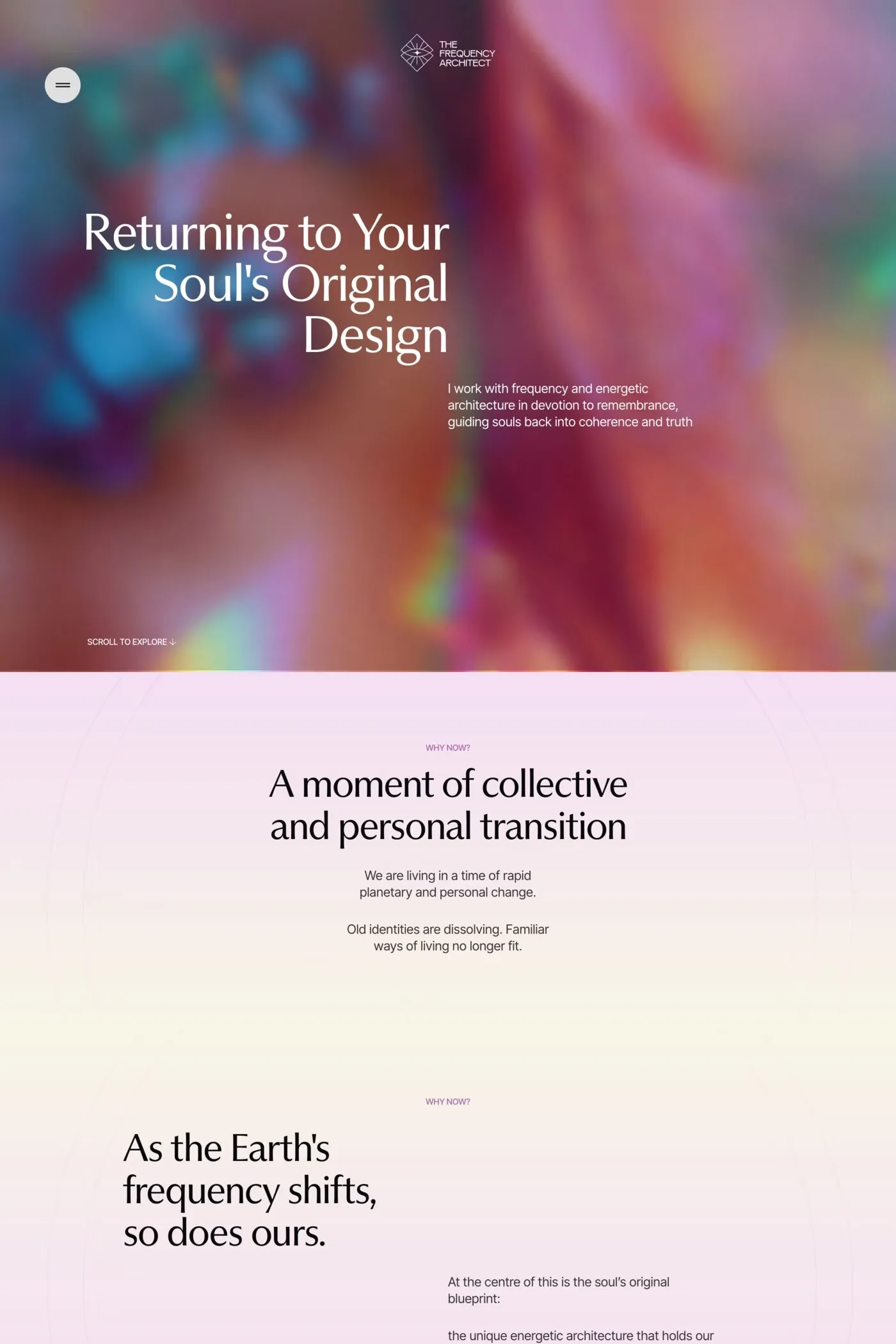
Museum is a sans-serif typeface from Pangram.
PP Museum is a masterfully crafted humanist sans-serif typeface, embodying the perfect blend of elegance and versatility.